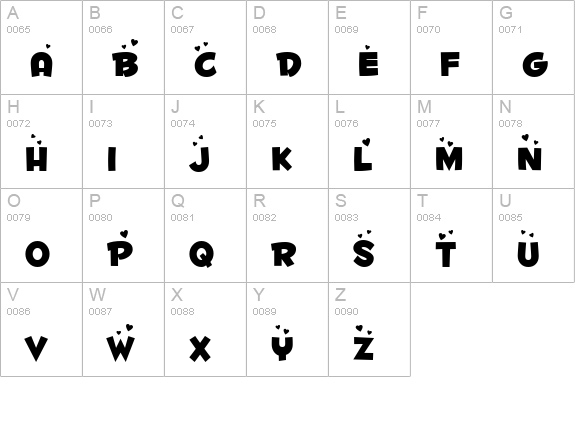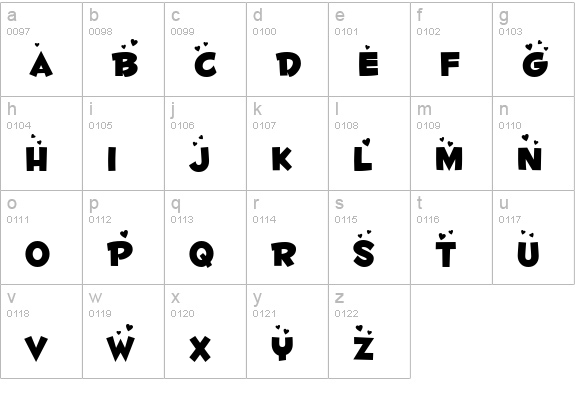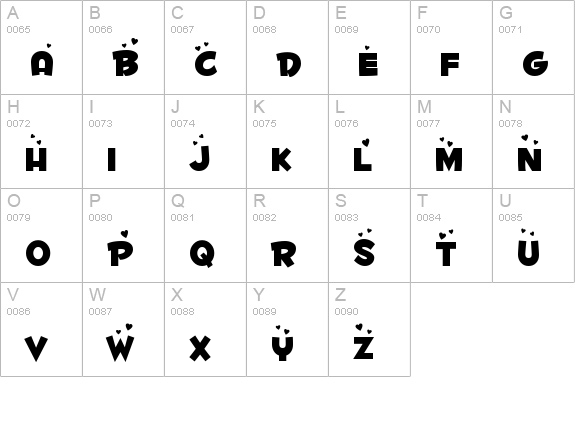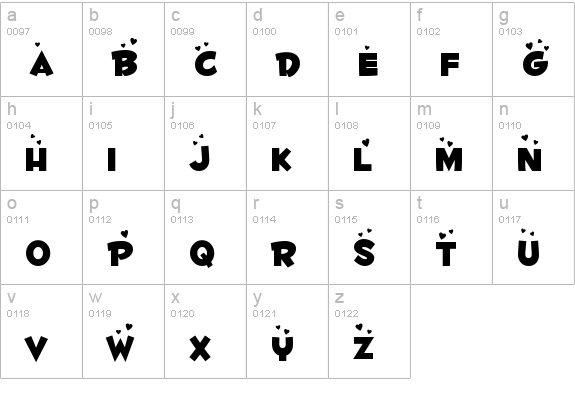
Fontdinerdotcom Luvable Font Details
Fontdinerdotcom Luvable is a delightful and whimsical font that will bring a burst of joy and playfulness to any project. With its curly and bouncy letterforms, this font exudes a sense of warmth and friendliness that is simply irresistible. Designed by the talented team at Fontdinerdotcom, Luvable is the perfect choice for creating eye-catching headlines, inviting invitations, charming greeting cards, and so much more. Its unique style adds a touch of personality and fun, making it perfect for any project that requires a touch of lightheartedness. And the best part? Fontdinerdotcom Luvable is absolutely free! That's right, you can download this incredible font without spending a dime. It is freely available to download at FontsMarket.com, where you can easily and quickly get your hands on this amazing font. Whether you're a professional designer or a casual hobbyist, Fontdinerdotcom Luvable is a must-have in your font collection. Its versatility and cheerful nature make it a go-to choice for a wide range of design projects. So why wait? Download Fontdinerdotcom Luvable now and let your creativity soar!